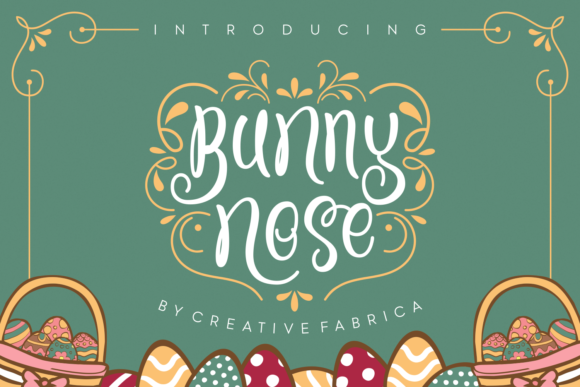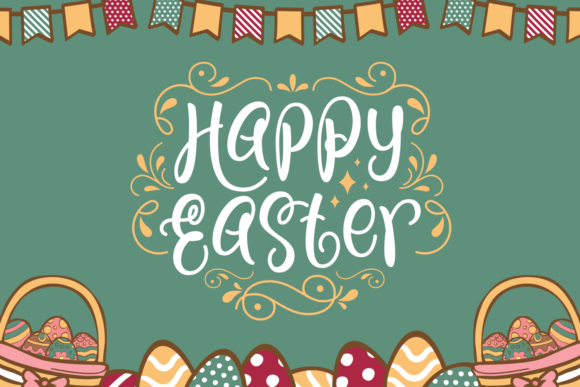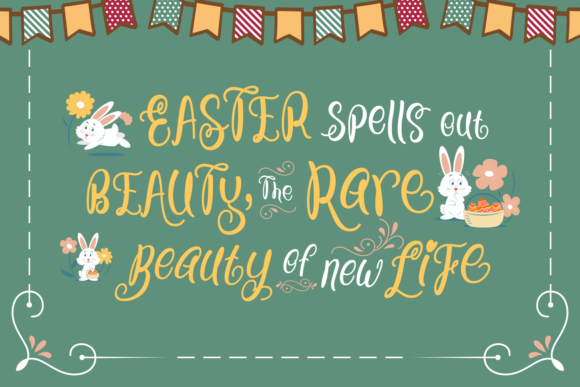
HomeScript FontsBunny Nose Font Script Fonts Bunny Nose Font FacebookXPinterestWhatsApp Bunny Nose Font Poster 2 Bunny Nose Font Poster 3 About Bunny Nose Font Bunny Nose is a sweet handwritten Easter font. Perfect for creating Easter & Spring themed designs. DOWNLOAD ON CREATIVE FABRICAThis font is sold and delivered by Creative Fabrica. Font Canyon may earn a commission if you buy through this link. People also explored Walkouts Font Xambdoria Font Thoriq Font Bunny Angel Font Nimaly Font Alessea Font Synchastro Font Farmhouse Stickers Font Afrocultures Font 278 0 TagsBunny Nose Font Previous articleCalliope Script FontNext articleRebetha Duo Font LEAVE A REPLY Cancel reply Comment: Please enter your comment! Name:* Please enter your name here Email:* You have entered an incorrect email address! Please enter your email address here Website: Save my name, email, and website in this browser for the next time I comment. Personal Use Free Triangular Curves Personal Use Free Read more about this font Welcome Creative Personal Use Free Read more about this font Bonhomie Personal Use Free Read more about this font Multicolore Personal Use Free Read more about this font BLOG How to Cut Any Font on Cricut: Convert a Font to SVG (Free) Turn any font into a clean SVG so it cuts crisp on Cricut - a quick 3-step workflow using a free font-to-SVG tool. 5 Fonts That Will Dominate Design Trends in 2026 Top 10 Handwritten Fonts That Elevate Your Designs Where to Buy American Fonts Online in 2024